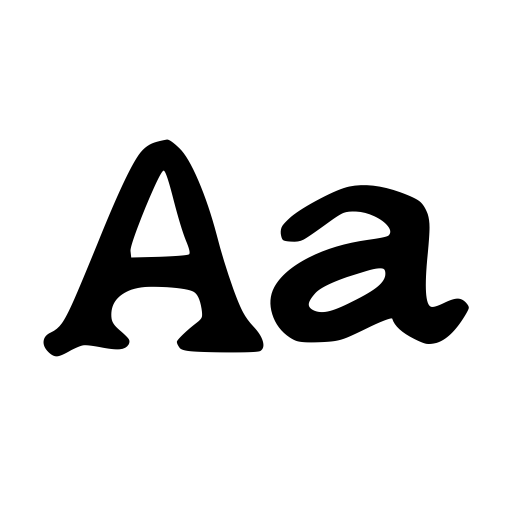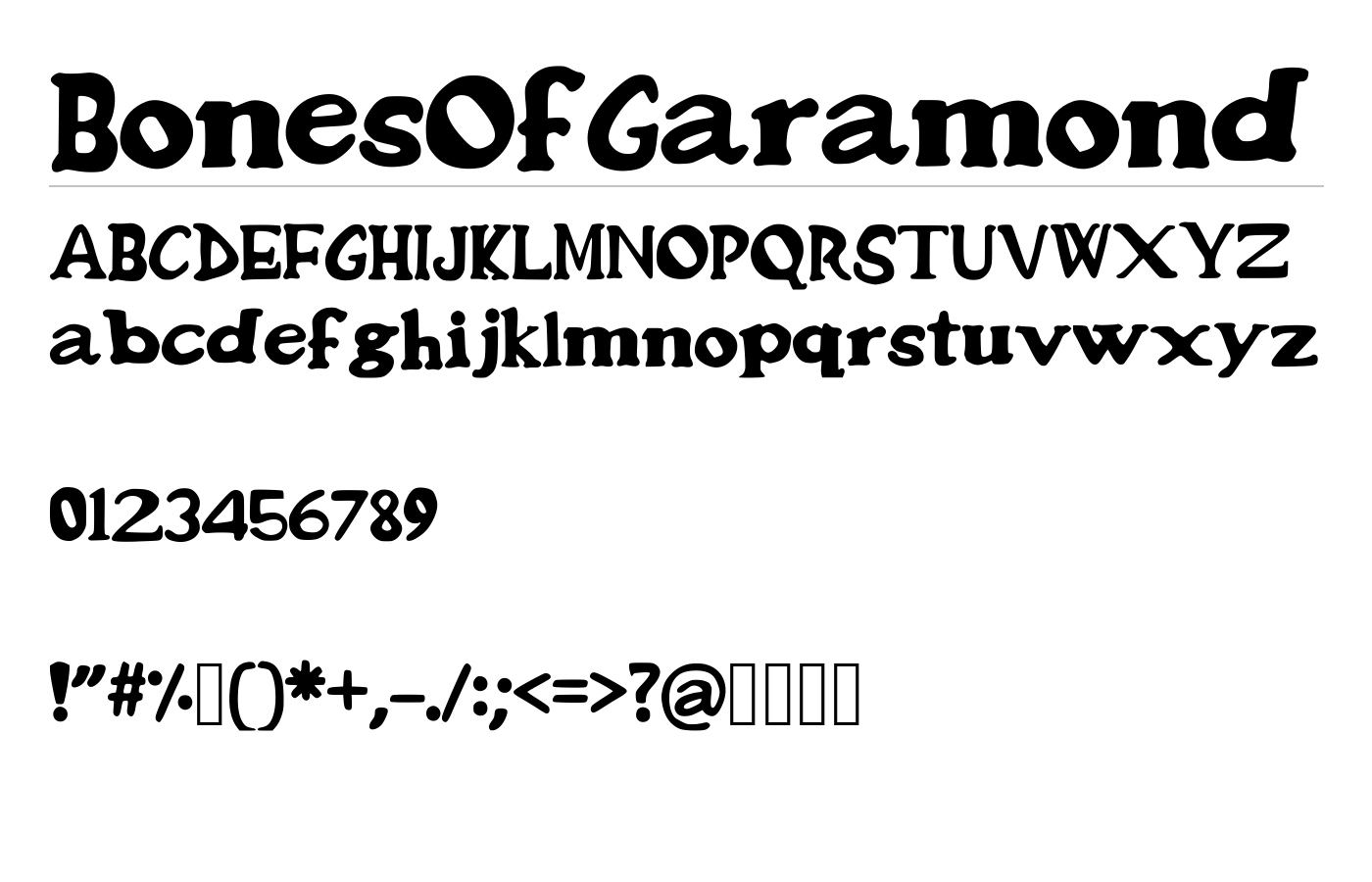
BonesOfGaramond is a whimsical serif font with bold, irregular strokes that give it a playful and slightly quirky personality. Its moderate contrast and chunky serifs create a friendly yet distinctive look, making it ideal for creative projects, headlines, and branding that seeks a unique, approachable style. This font works especially well where a touch of character and warmth is desired without sacrificing readability.
BonesOfGaramond Font
About BonesOfGaramond Font